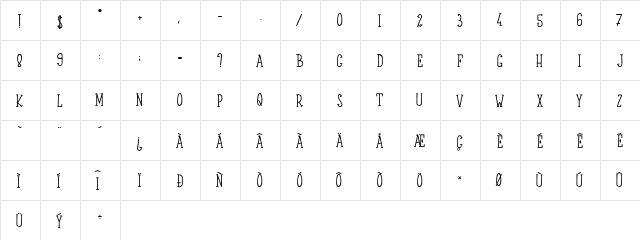
LE PRINCE SUR LE MOUTON Regular
Design Context for LE PRINCE SUR LE MOUTON Typeface
LE PRINCE SUR LE MOUTON takes a measured approach to typography — its balanced proportions and neutral character make it a reliable workhorse for both digital and print work.